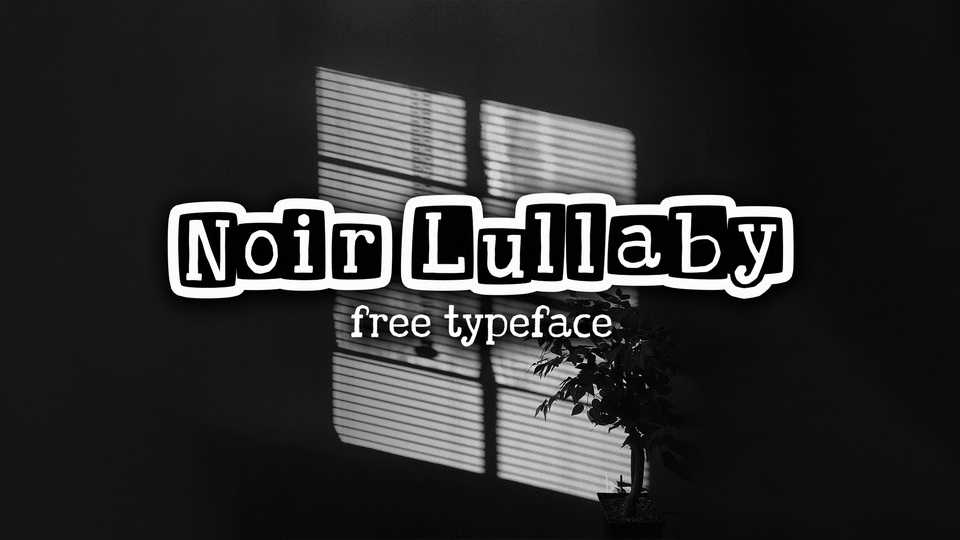
Noir Lullaby Font › Fontesk – Download Grátis
Download Noir Lullaby font, a retro typewriter typeface with a grungy look. Noir Lullaby font is perfect to create greeting cards, posters, stickers, mugs and t-shirts designs, collages and social media.
Designer: Szymon Furjan